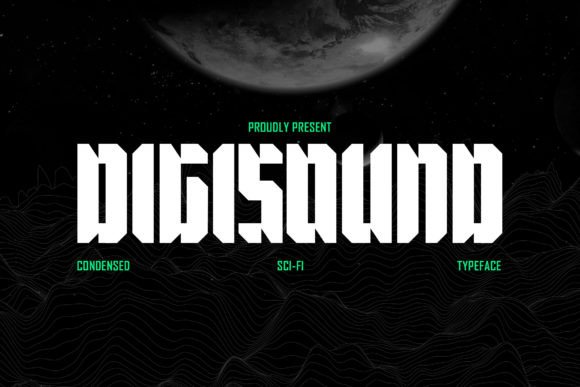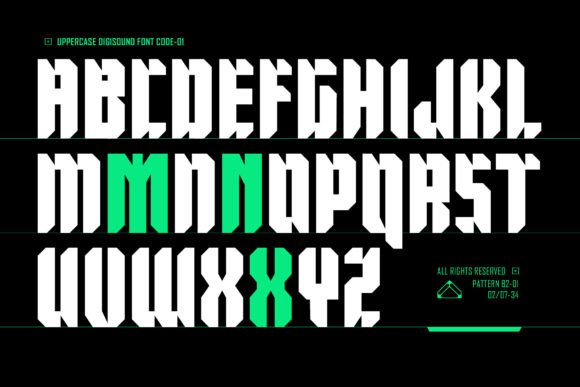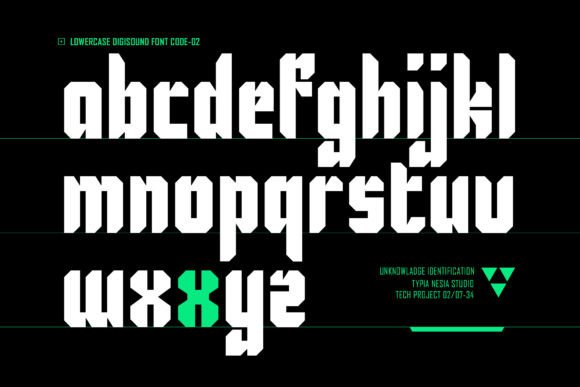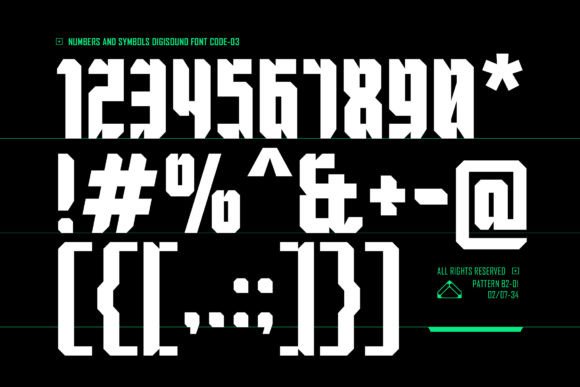
Digisound Font: Bold Futuristic Typography for Sci-Fi Logo Design
About the Digisound Font
Experience the unique personality of Digisound Font, a font designed for impact. Digisound is a modern bold condensed Sci-Fi futuristic font that embodies the essence of the digital age. With its sharp lines, condensed structure, and bold appearance, Digisound brings a futuristic aesthetic to your designs. It’s perfect for creating a high-tech, cutting-edge vibe, such as branding sci-fi-themed projects, tech branding, futuristic posters, video game titles, movie posters, logo design, digital interfaces, and any design where a modern, tech-forward look is essential.
Digisound excels in headlines, logos, and short impactful statements where its bold condensed forms command attention. It’s ideal for tech brands, gaming projects, and science fiction-themed designs requiring a strong, futuristic feel. However, its condensed nature makes it unsuitable for body text or long paragraphs; readability suffers at smaller sizes.
Pairing Digisound with a clean sans-serif like Open Sans for body copy provides excellent contrast and readability. For a more sophisticated look, consider a geometric sans-serif such as Futura for a balanced, modern feel. Alternatively, a subtle serif like Garamond can add a touch of classic elegance to offset Digisound’s futuristic edge.
The font projects a bold, assertive, and undeniably modern personality. Its high-tech aesthetic is best suited for brands that want to convey innovation, power, and a forward-thinking approach.
Digisound Font Usage Examples
Digisound Font Example